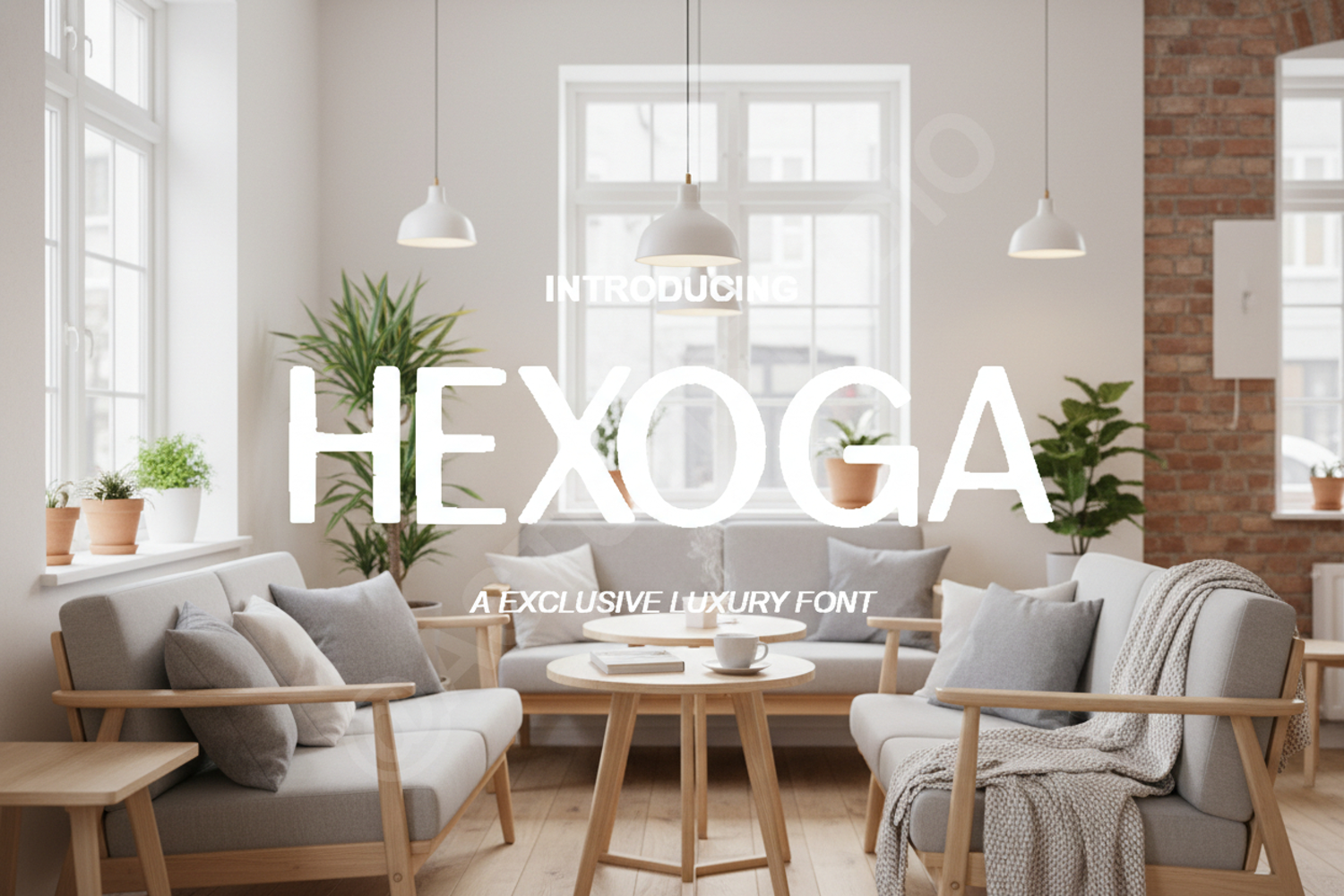
Hexoga - Elegant Modern Geometric Sans
Hexoga
Hexoga is a sophisticated geometric sans-serif typeface designed for those who seek perfection in every stroke. With its clean lines and balanced proportions, Hexoga offers a professional look that is both timeless and contemporary. This premium font is meticulously crafted to ensure high legibility and a striking aesthetic across both digital and print mediums.
Perfect For
- Luxury Branding and Corporate Identity
- Minimalist Logo Design
- Professional Editorial Layouts and Magazines
- Modern Website Headers and UI Design
- Social Media Marketing and Advertising
- High-End Packaging and Product Labels